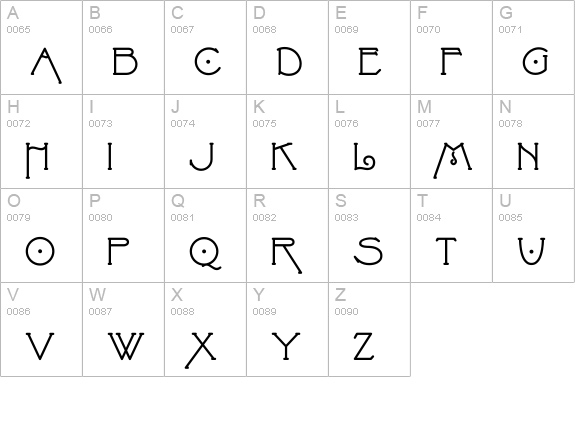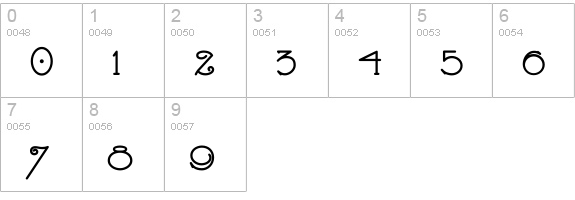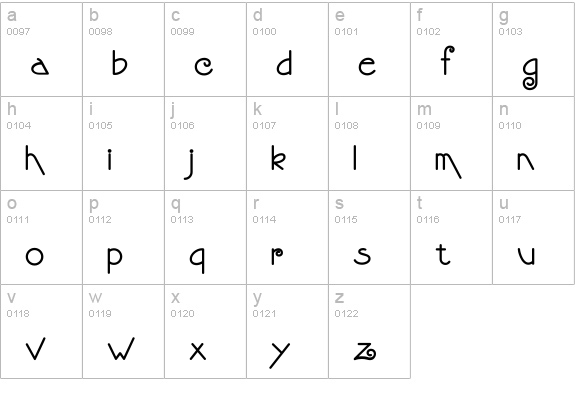
StrongsDraughtsman DemiBold is a sub-bold, structured variant in the StrongsDraughtsman typeface family \xE2\x80\x94 well suited to sub-headlines and emphasised passages.
StrongsDraughtsman DemiBold is a versatile and modern font that exudes strength and sophistication. Its bold and clean lines make it perfect for a wide range of design projects, from logos to posters to branding materials. The font's striking presence commands attention and conveys a sense of professionalism and confidence. What sets StrongsDraughtsman DemiBold apart is not only its exceptional design, but also its accessibility. This premium font is freely available to download at FontsMarket.com, allowing designers and creatives to easily incorporate its unique style into their work without any barriers. With StrongsDraughtsman DemiBold, you can elevate your designs with a touch of bold elegance and make a lasting impression on your audience.